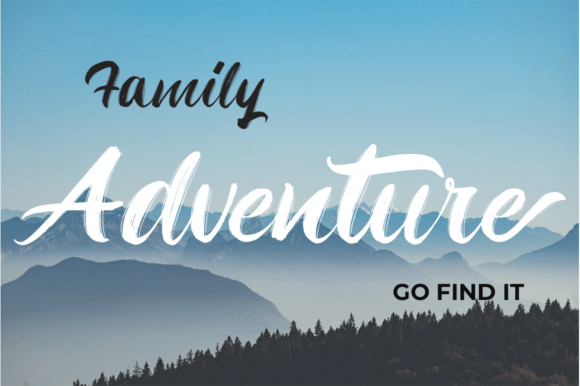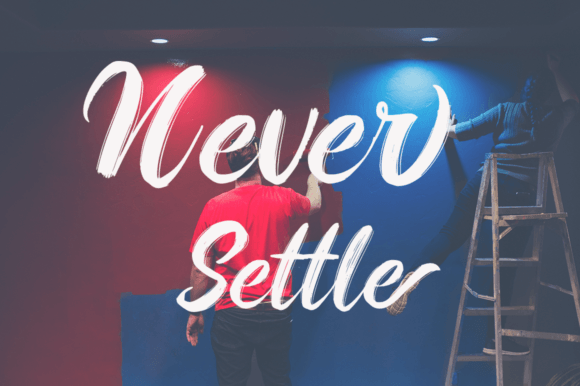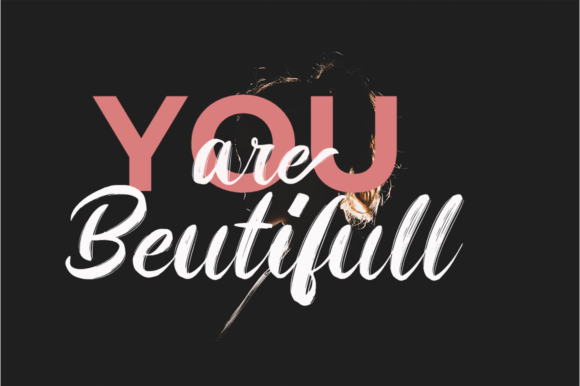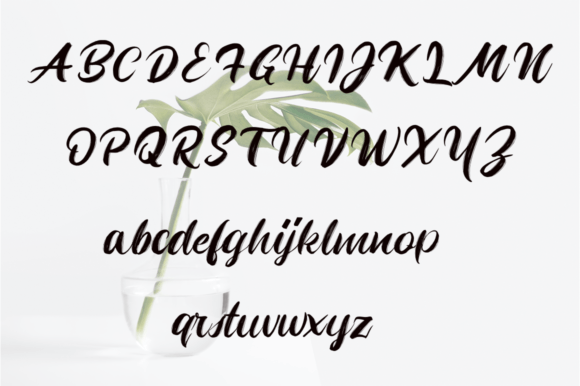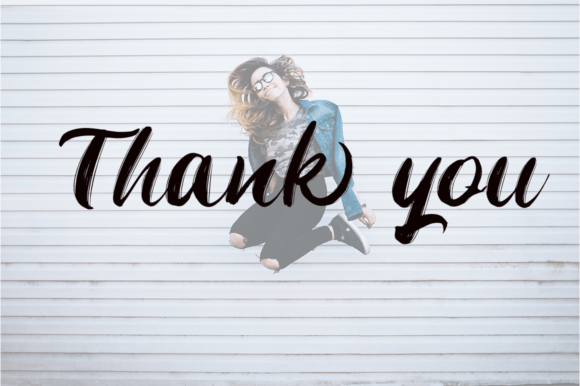
Introduction to Montiran Font
As designers, we’ve all been there – staring at a blank canvas, waiting for the perfect spark to ignite our creative project. It’s the moment when the right font can make all the difference. For those looking to add a touch of elegance and whimsy to their designs, we’re excited to introduce the Montiran Font.
This beautiful handwritten font is more than just a design resource – it’s a game-changer. With its high quality and versatility, Montiran Font is perfect for a wide range of applications, from logos and product packaging to wedding invitations and branding. Whether you’re working with a transparent background or need a free download for your next project, Montiran Font is sure to impress.
For designers, having access to a high-quality font like Montiran Font is invaluable. It allows us to take our designs to the next level, adding a personal touch that sets us apart from the rest. In this article, we’ll take a closer look at the Montiran Font and explore its many uses and benefits.
Key Features of Montiran Font
- High-quality design resource for creative projects, ideal for graphic designers and artists.
- Unique, modern design with a transparent background, allowing for versatile use in different contexts.
- Perfect for use in digital art, logos, and branding materials due to its clean and elegant appearance.
- Available in a range of sizes and resolutions, making it suitable for use in various applications.
- Designed to be highly legible and readable, even at small font sizes.
Honest Review: Montiran Font
As a designer, I’m always on the lookout for high quality design resources to elevate my creative projects. The Montiran Font caught my eye, and I was excited to give it a try.
- ✨ Elegant and sophisticated design aesthetic, perfect for luxury brands and high-end projects.
- ✨ Supports both Latin and Cyrillic character sets, making it a versatile choice for global projects.
- ⚠️ Limited customization options, which may not be ideal for designers who like to get creative with their typography.
- ⚠️ Some users may find the font a bit too ornate, which can be overwhelming for certain design projects.
Overall, I think the Montiran Font is a solid choice for designers who need a high-quality, elegant font for their creative projects. With its transparent background and free download option, it’s a great addition to any design resource library.
How to Use Montiran Font
The Montiran Font is a versatile, high-quality design resource ideal for creative projects that demand a unique touch. Its transparent background makes it easy to overlay on images or use as a standalone element.
Using Montiran Font in Design Software
Getting the Most Out of Montiran Font
To get the most out of the Montiran Font, use it in creative ways such as:
- Overlaying it on images for a unique effect.
- Using it as a standalone element in designs.
- Combining it with other fonts for a diverse look.
The Montiran Font is perfect for:
- Branding and logo design.
- Social media graphics and posts.
- Infographics and data visualizations.
Alternatives to Montiran Font
The Great Vibes Font is a high-quality script font perfect for creative projects that require a touch of elegance. Its flowing lines and subtle flair make it ideal for designing invitations, quotes, and titles. When to use: Wedding invitations, quotes, and titles. How it compares to Montiran Font: While Montiran Font is more modern and edgy, Great Vibes Font offers a softer, more romantic feel.
Pacifico Font is a beautiful, elegant script font that is perfect for design projects that require a touch of sophistication. Its smooth lines and classic feel make it ideal for designing logos, branding materials, and marketing materials. When to use: Logos, branding materials, marketing materials. How it compares to Montiran Font: Pacifico Font is more refined and polished than Montiran Font, making it suitable for corporate designs.